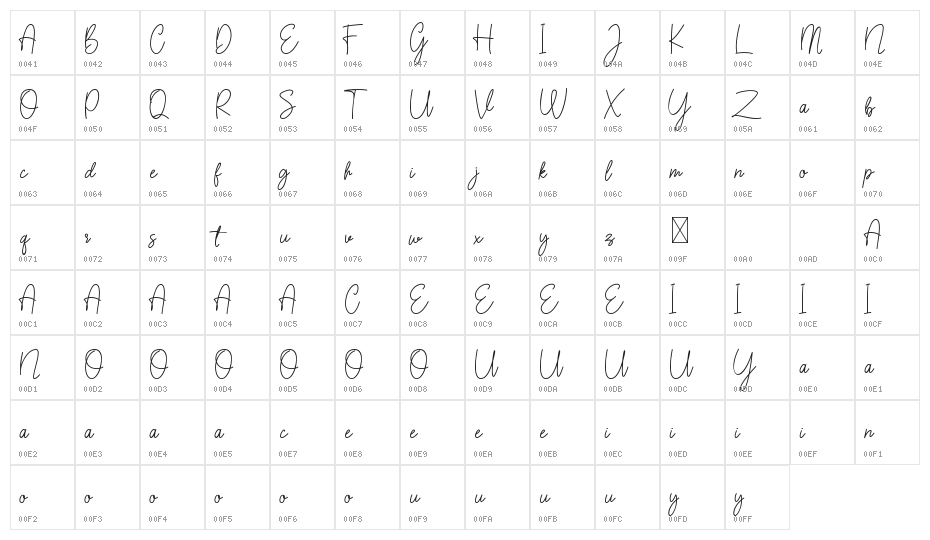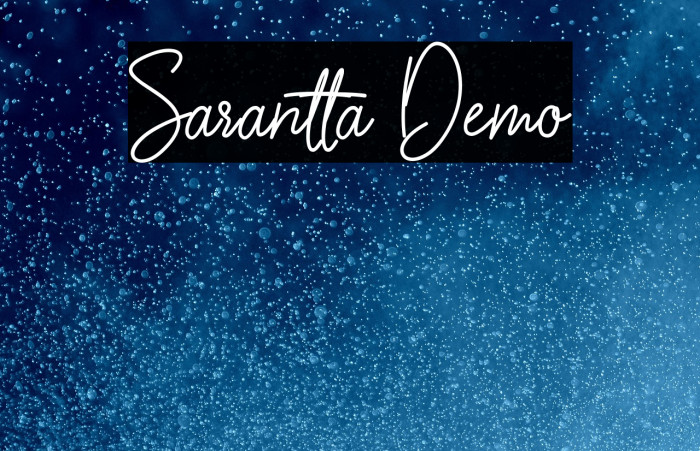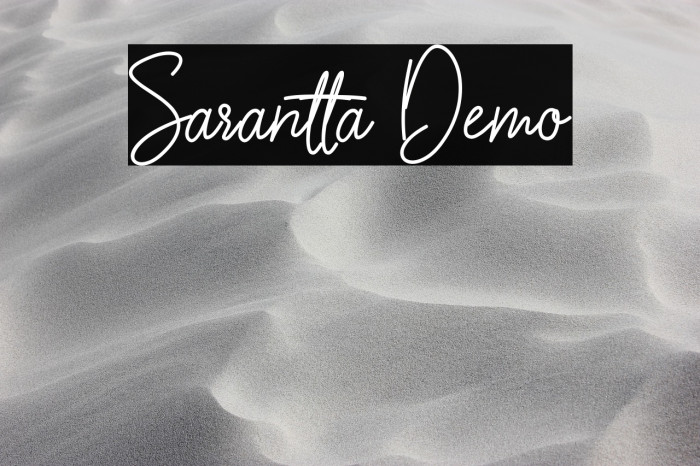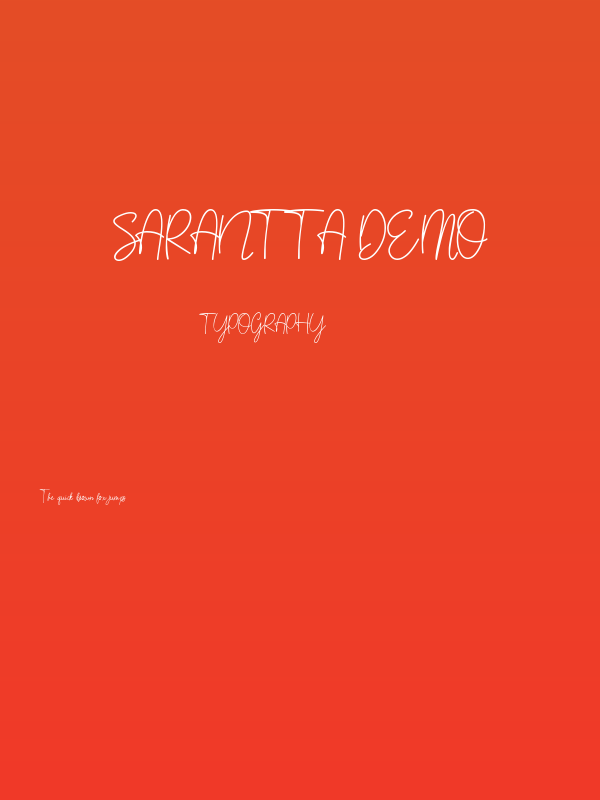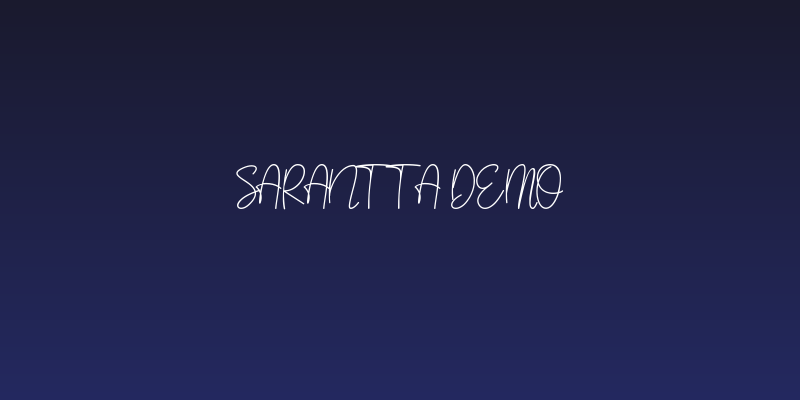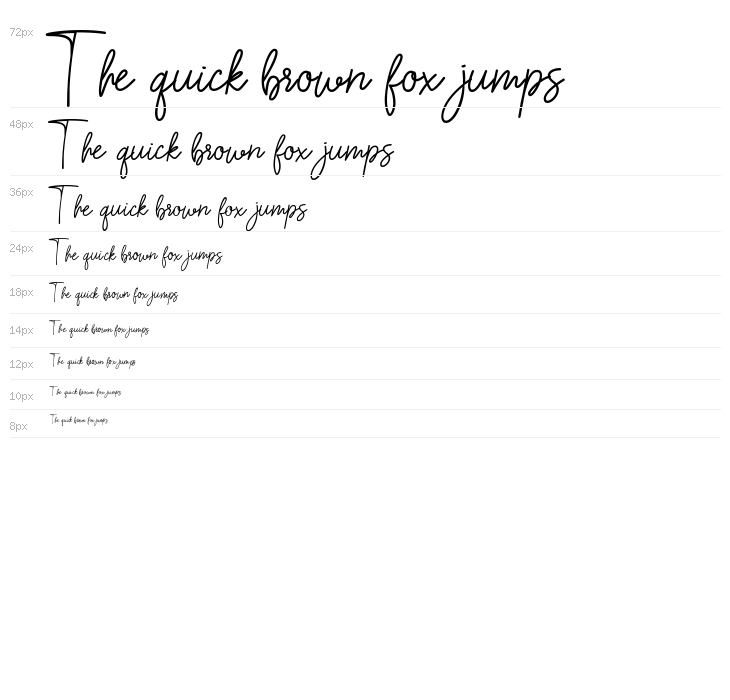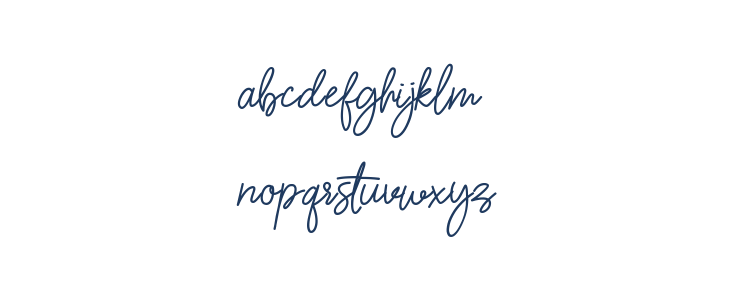
Sarantta Demo Font
Sarantta Demo Description
This font exudes a modern, handwritten style characterized by its fluid and elegant script. The letters are connected in a seamless flow, creating a sense of movement and grace. The uppercase letters are tall and slender, while the lowercase letters maintain a consistent flow with a slight slant, enhancing the handwritten feel. The strokes are smooth and continuous, with a medium contrast between thick and thin lines, adding to its legibility and aesthetic appeal. This font is perfect for projects that require a personal touch, such as invitations, greeting cards, or branding materials that aim to convey elegance and sophistication.
Use CaseLogos, Invitations, Greeting Cards
Proposed ProjectsIdeal for wedding invitations, personal branding, greeting cards, and elegant packaging designs.